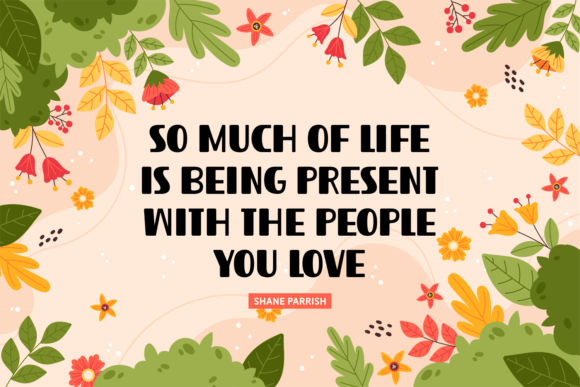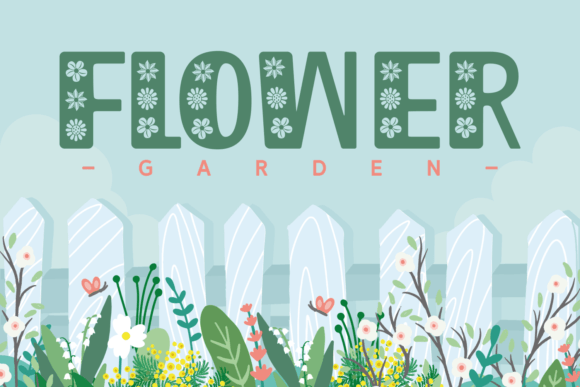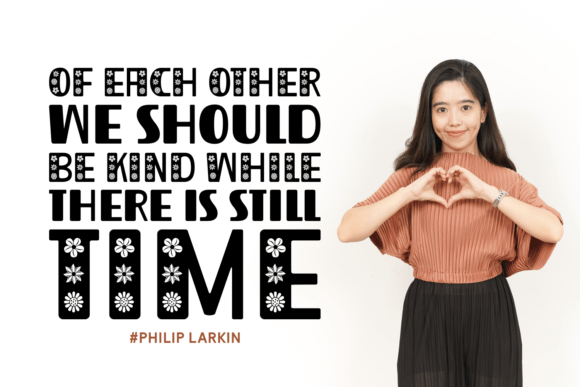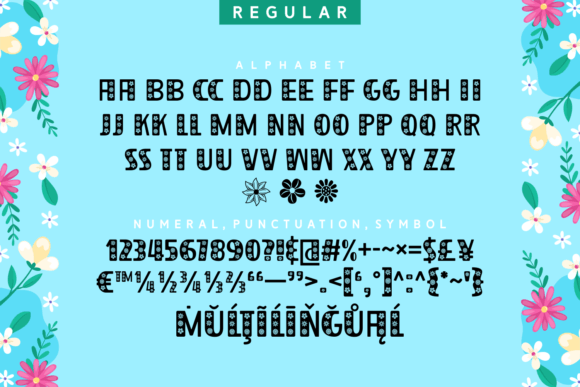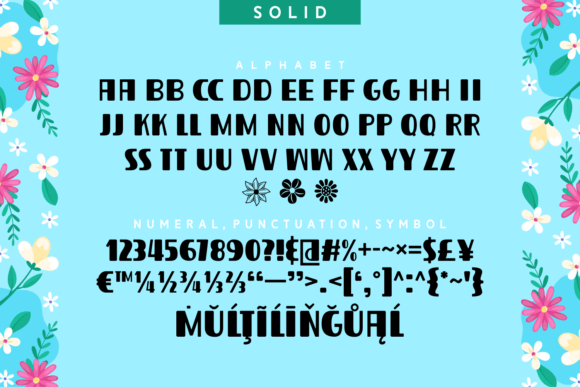
Made Florn Font – Free Download
Introduction to Made Florn Font
Made Florn is a stunning floral decorative font.
With its graceful flower features, this typeface will perfectly complement your spring-themed projects and more Use it for greeting cards, fabric prints, crafts, decorations, quotes, logos, and many more.
Key Features of Made Florn Font